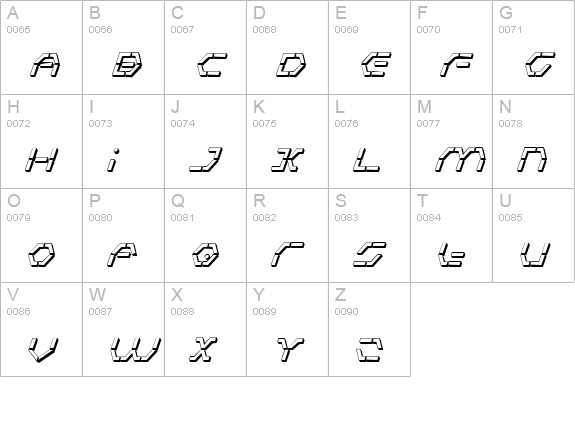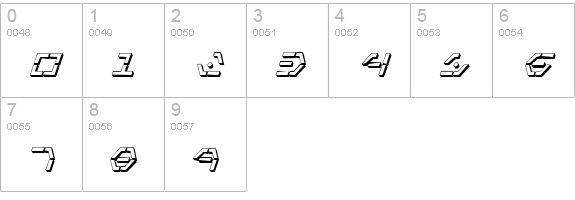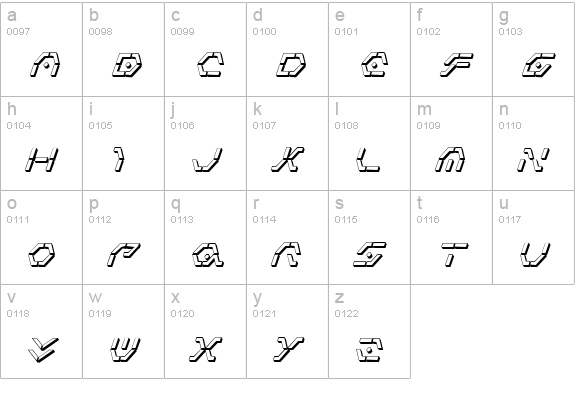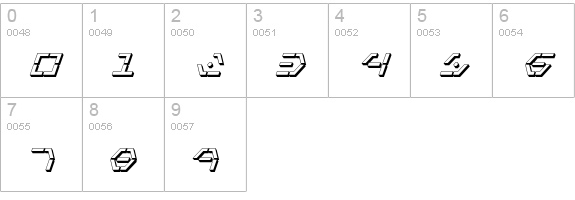
Zeta Sentry 3D Italic is a distinctive, italic variant in the Zeta typeface family \xE2\x80\x94 well suited to design and typography projects.
Zeta Sentry 3D Italic font is a striking and modern typeface that will add a touch of sophistication to any design project. The sleek 3D effect gives it a unique and eye-catching appearance, making it perfect for headlines, logos, and other display purposes. This font is free to download at FontsMarket.com, making it easily accessible for all designers looking to elevate their work with a touch of elegance. With its bold and dynamic style, Zeta Sentry 3D Italic font is sure to make a lasting impression on your audience.